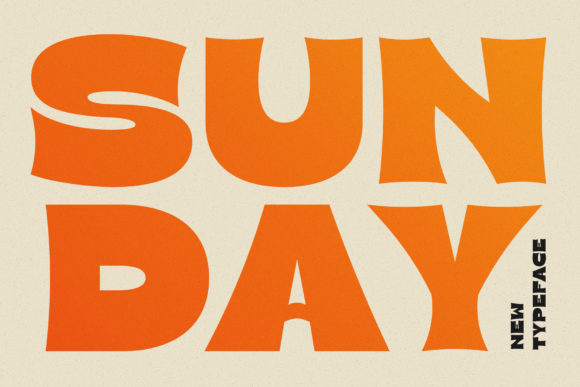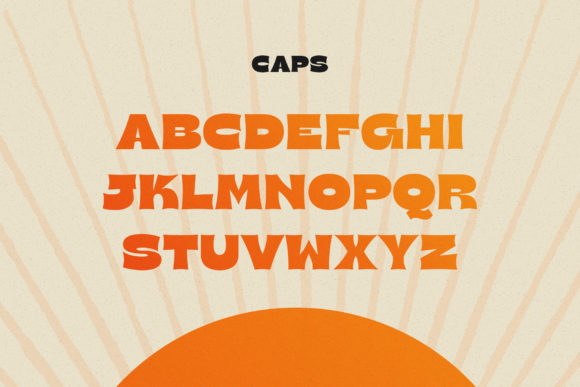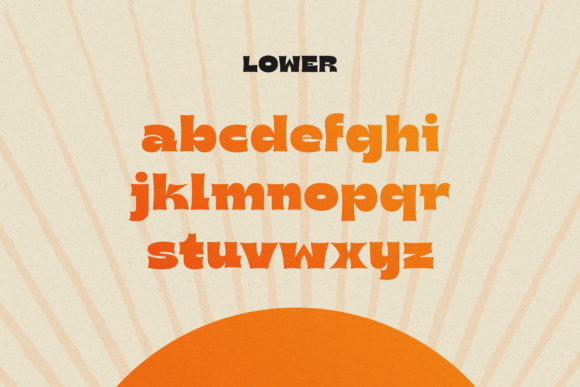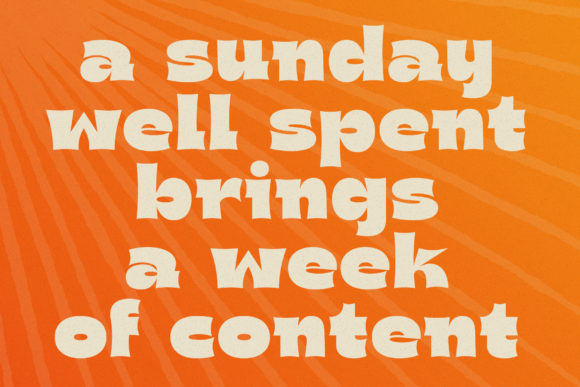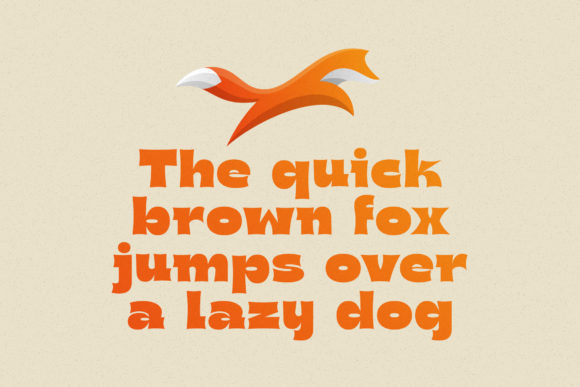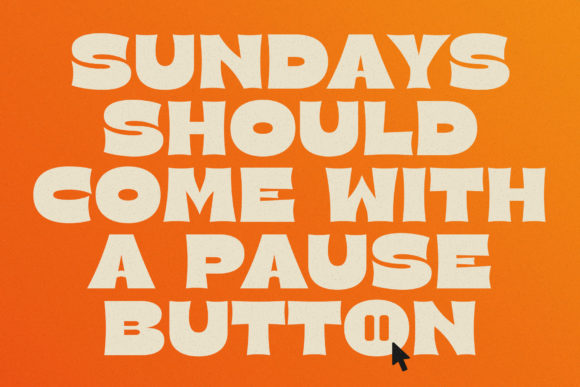
Sunday Font
Sunday is a cool and bold display font. It works on a variety of design ideas that require a touch of trendiness. Amaze your readers with Sunday.